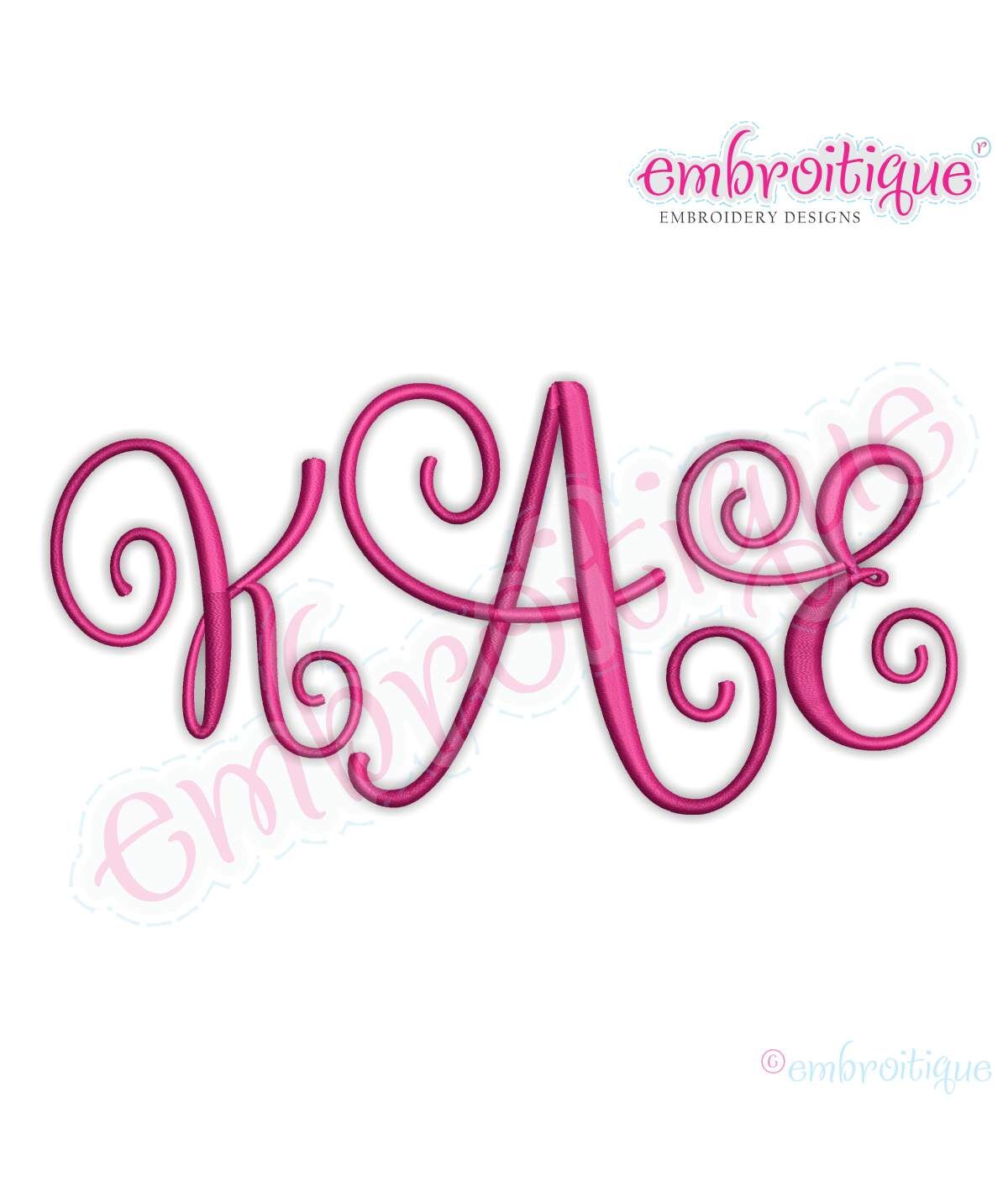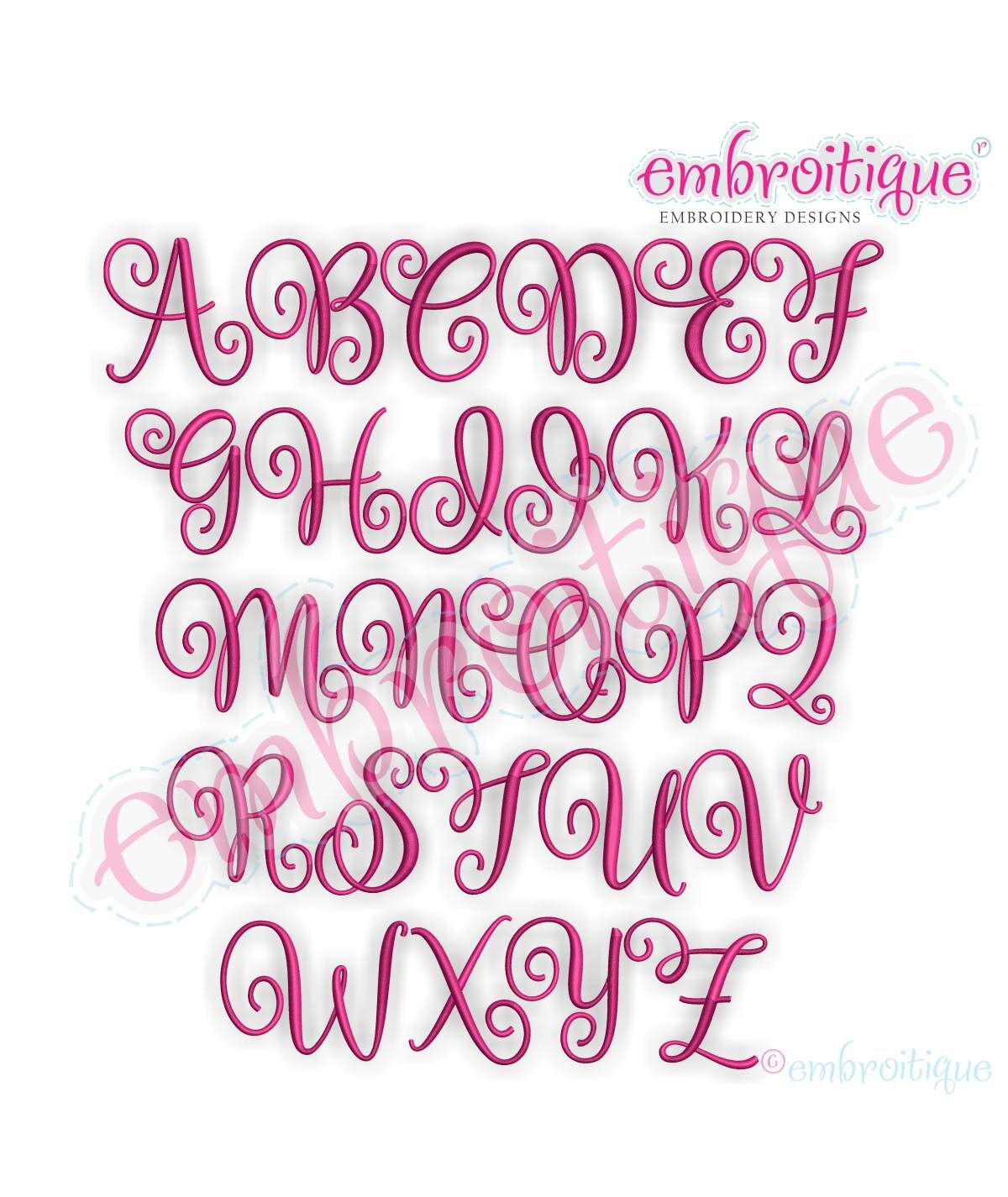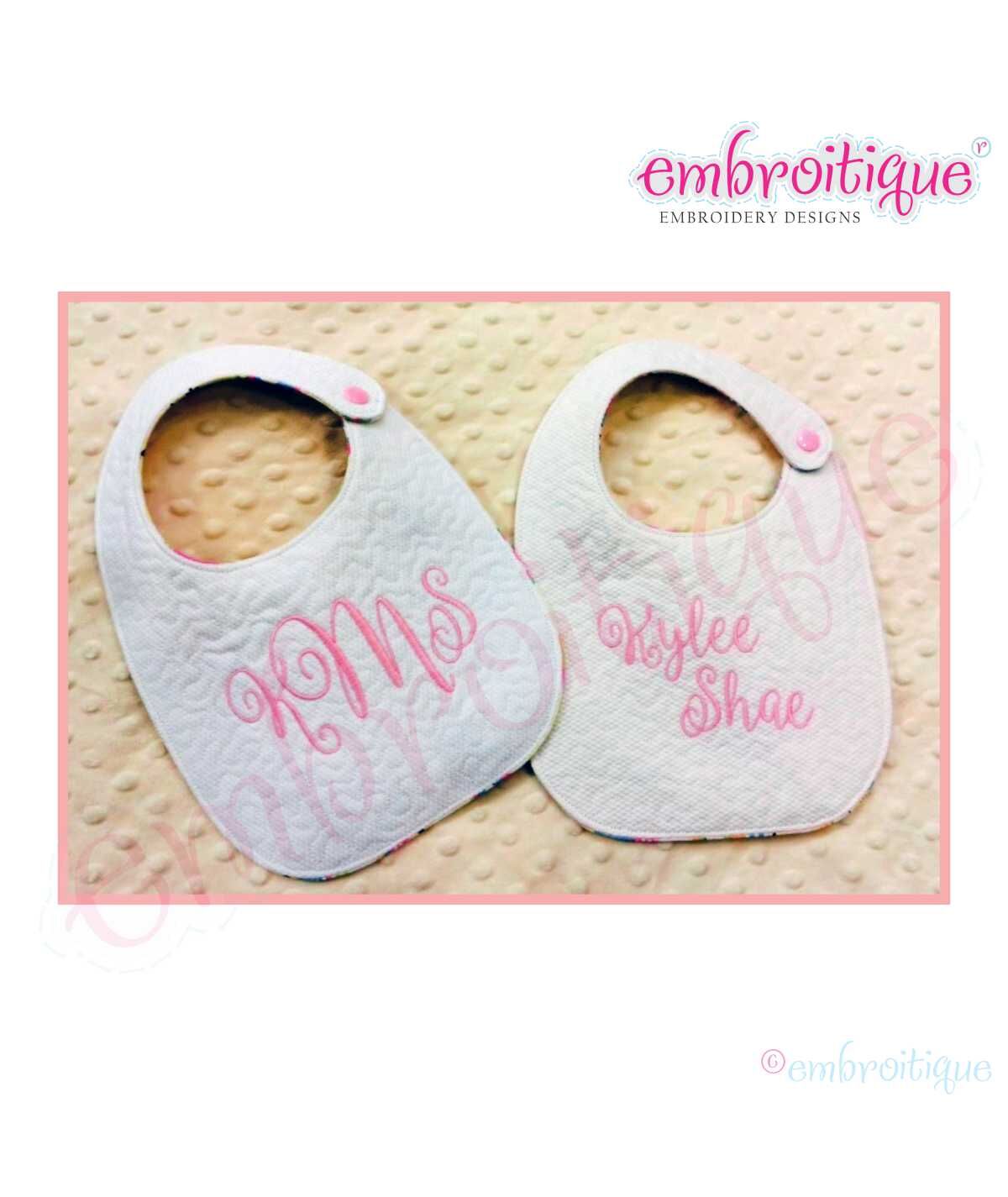
Kimberly 2 Alternate Caps Calligraphy Monogram Set - Small
A beautiful hand lettered upright calligraphy initials.  26 letters in 1", 1.5", 2", 2.5", & 3".  the files are named with CAP being the center of a 3 letter monogram, and the LOW being the letters on either side.  These are capital letter alternates to be used with the full Kimberly Set with lowercase and punctuation sold separatley here.